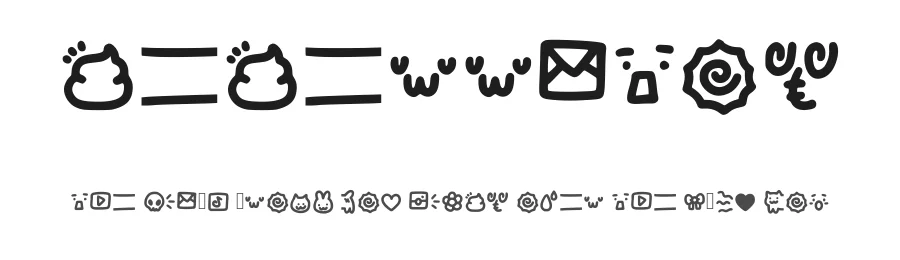
About Peperritos Ornaments Font
Peperritos is a font for personal free use. handwritten with y2k kawaii aesthetic
It also contains a secondary fountain with ornaments.